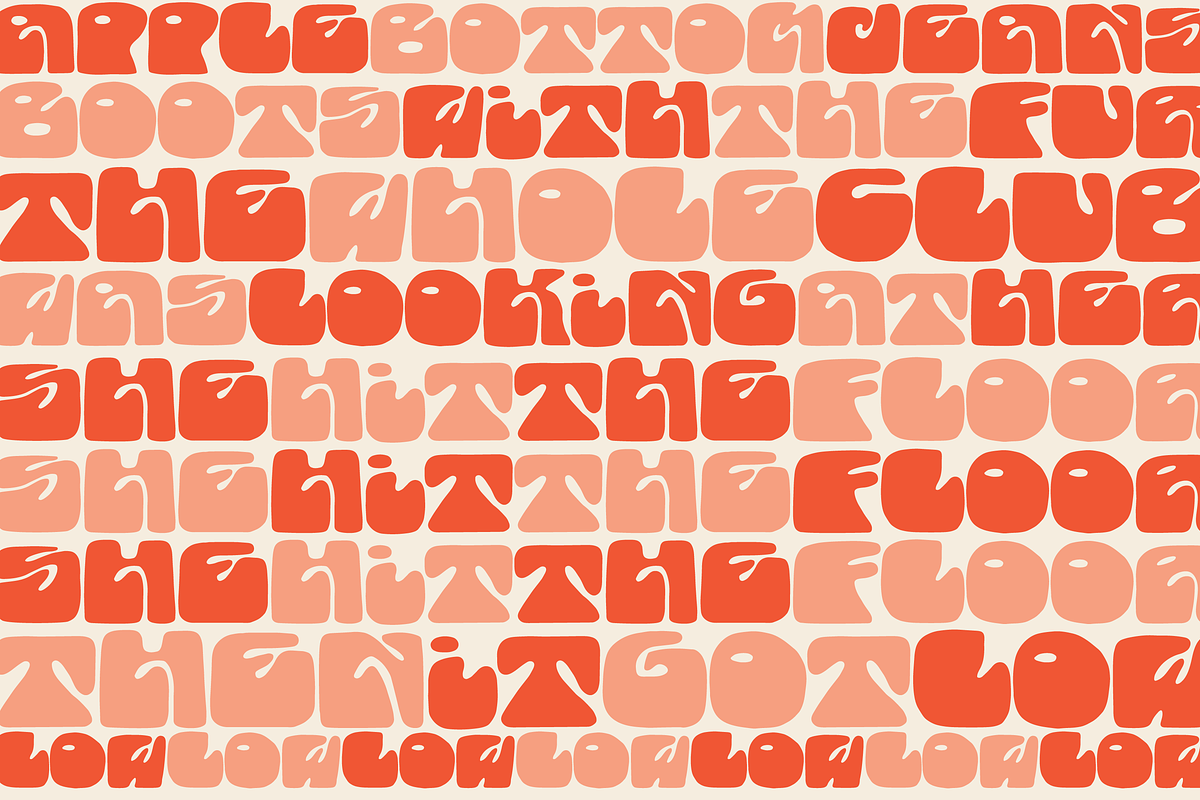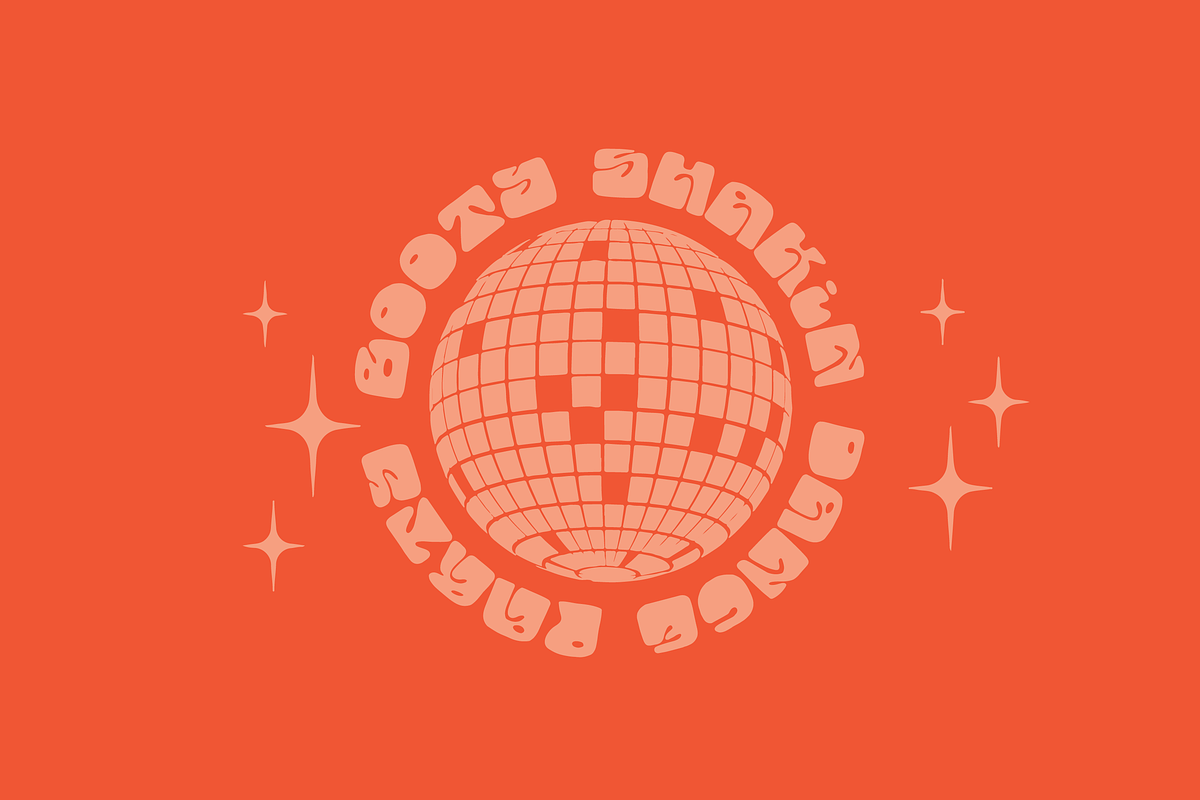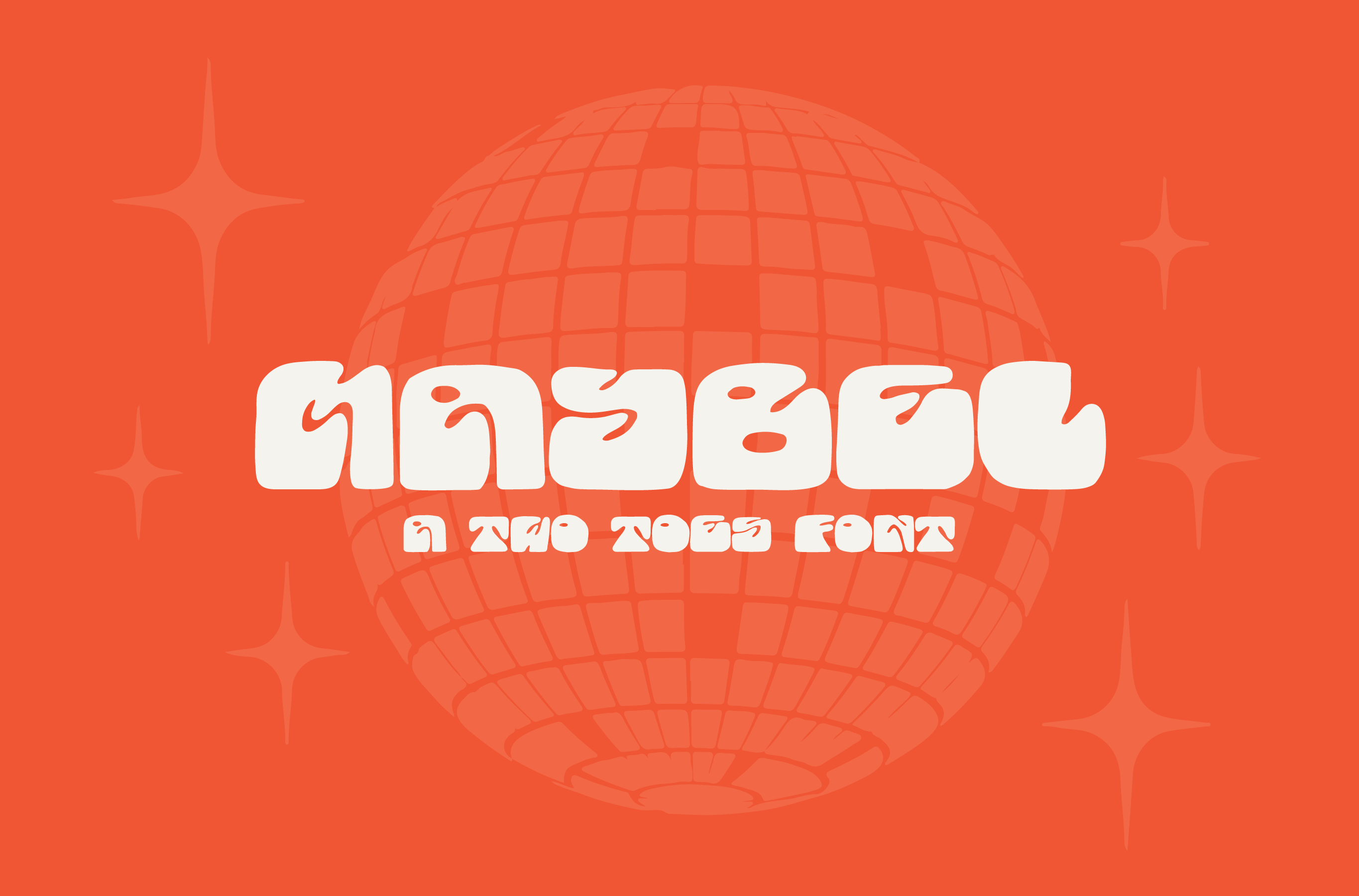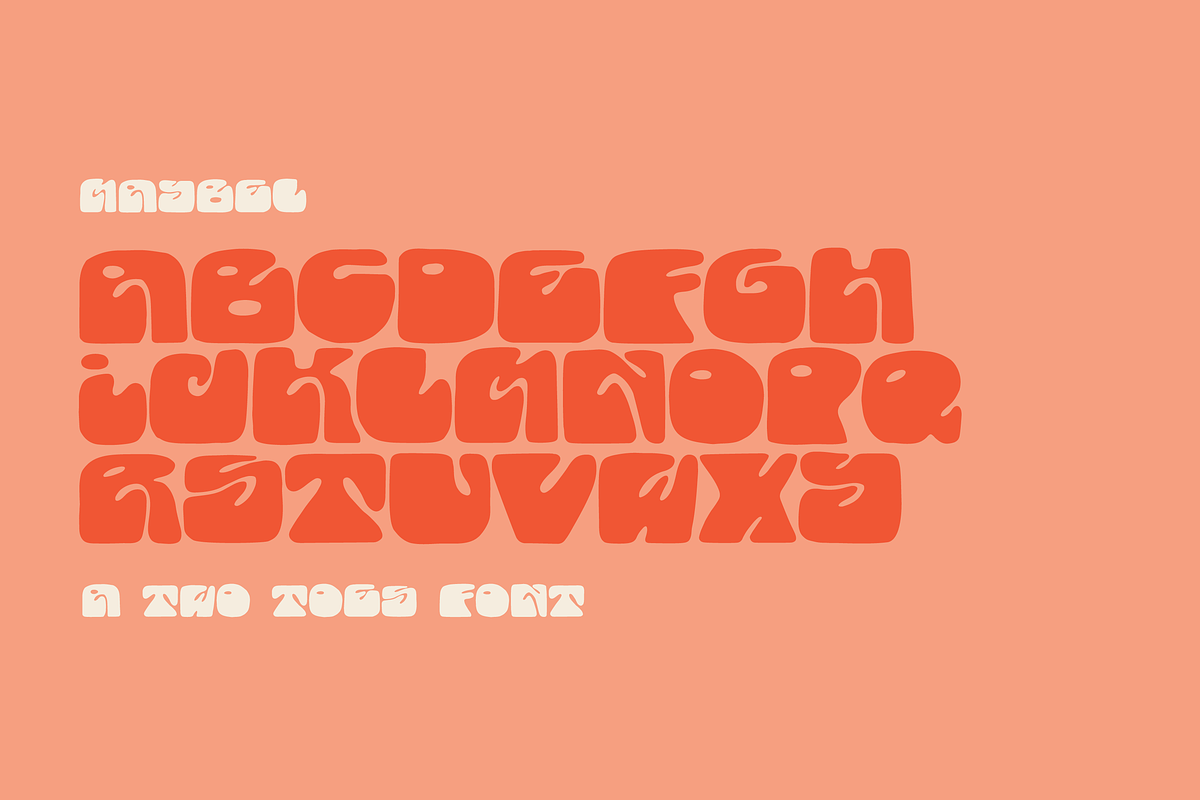
Maybel: A disco-worthy display font
Meet Maybel. Wait, sorry, she's still breaking it down on the dance floor. Maybel can you come over here? Okay fine I'll introduce her myself. Maybel a handlettered display font oozing funk and groove. She's fun. Like really fun.